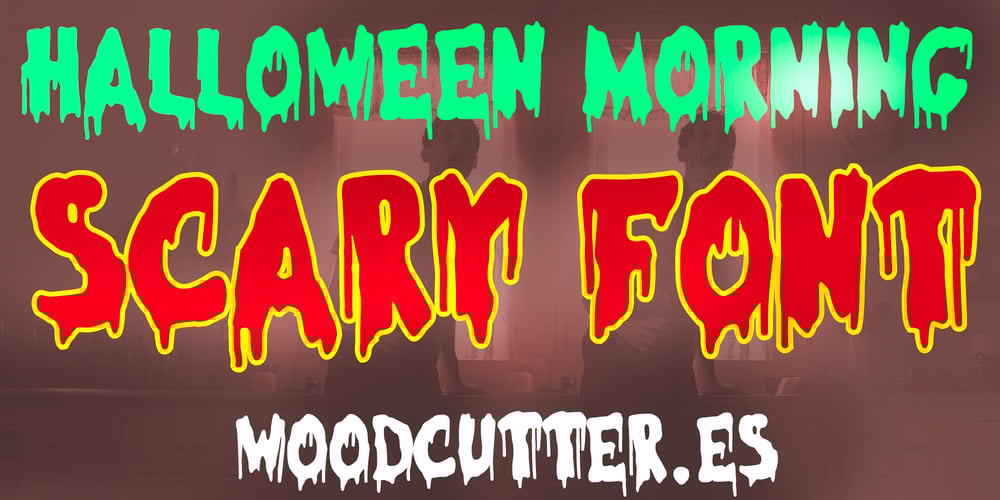
Halloween Morning Font Family was designed by Jordi Manero and published by Woodcutter. Halloween Morning contains 1 styles and family package options. “Halloween Morning” is an all-uppercase font that evokes the classic horror aesthetic seen in vintage movie posters. The letters feature a bold and slightly irregular design, reinforcing the nostalgic feel of old-school horror films. With its thick appearance and sharp edges, this font resembles the typography used in posters from the golden age of horror cinema. Perfect for projects that aim to recreate a vintage, spooky atmosphere, this font is ideal for book covers, Halloween-themed posters, or any design with a macabre theme.